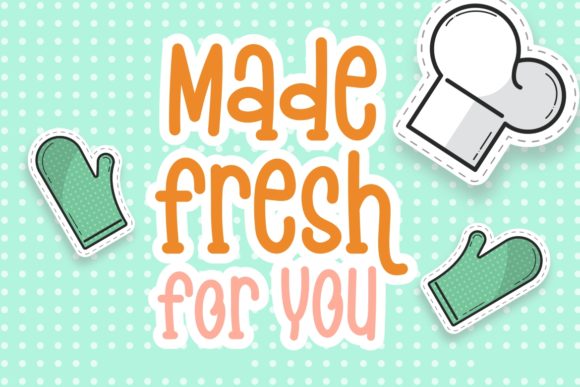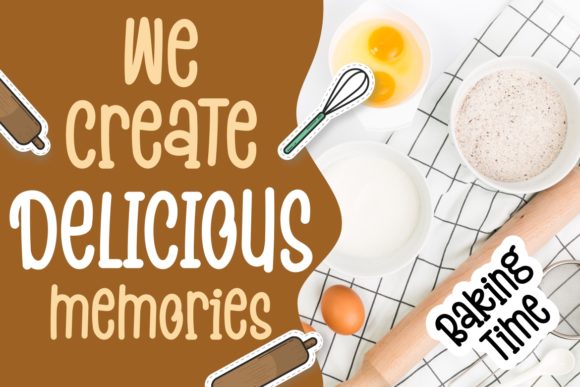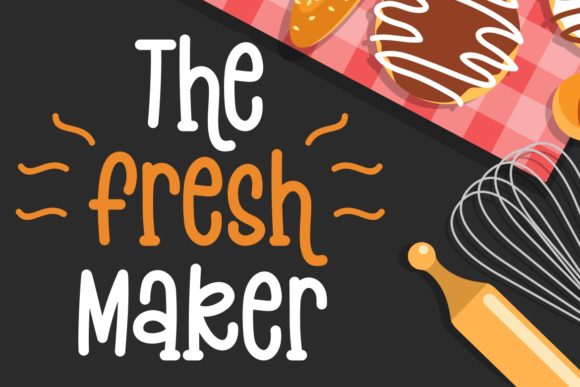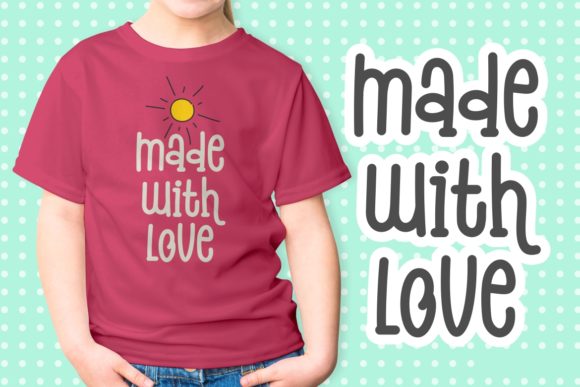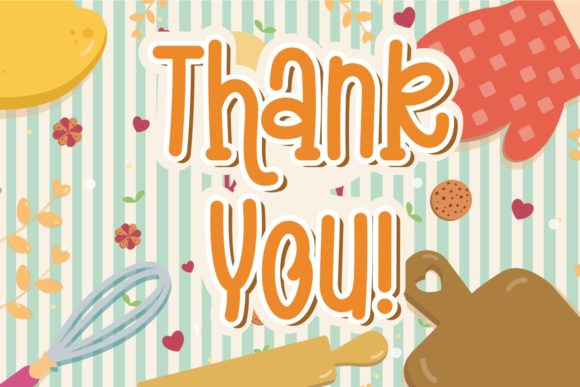
The Sweetest Touch: Baking Pastry Font
Have you ever found yourself in the midst of a creative project, searching for the perfect font to bring it to life? I know I have. The blank page stares back at me, and I’m left wondering what font will capture the essence of my idea. It’s in these moments that I’ve discovered some of my favorite fonts, and one that stands out in particular is the Baking Pastry Font.
This adorable handwritten font is designed to add a touch of warmth and authenticity to any design project. With its clean lines and playful feel, it’s perfect for creating beautiful wedding invitations, stunning social media posts, and adorable greeting cards. As a designer, I can appreciate the value of having a versatile font like Baking Pastry Font that can be used in a variety of creative ways.
Baking Pastry Font Key Features
- Unique Characteristics: Features a unique, hand-drawn design inspired by traditional baking and pastry illustrations, with intricate details and textures.
Baking Pastry Font Review
I recently had the chance to work with the Baking Pastry Font, and I must say it’s a unique addition to any baking-themed project. Here’s my honest review.
- Cute and whimsical design that’s perfect for baking-related projects
- Well-designed uppercase and lowercase letters, with clean lines and curves
- Accents and ligatures add a touch of personality to the font
- The font may be too cute for more serious or professional projects
- Lack of variety in weights and styles may limit its use in certain situations
- Not ideal for projects that require a lot of code readability
The Baking Pastry Font is a charming addition to any project that needs a touch of whimsy. While it may not be suitable for every situation, it’s perfect for baking-themed projects, social media graphics, or any project that needs a playful feel. If you’re looking for a unique font to add some personality to your project, the Baking Pastry Font is definitely worth considering.
Use Baking Pastry Font for titles, headings, and any text that requires a touch of elegance and sophistication.
Combine Baking Pastry Font with other fonts to create a unique and eye-catching design.
Baking Pastry Font is ideal for:
- Baking and cooking-related designs.
- Food and recipe blogs.
- Catering and event planning.
- Restaurant and cafe menus.
Alternatives to Baking Pastry Font
Playfair Display is a luxurious, high-end font that’s perfect for formal designs, magazines, and high-end branding. It’s more elegant and sophisticated than Baking Pastry Font, making it ideal for occasions where you want to convey luxury and sophistication.
Great Vibes is a beautiful, elegant script font that’s perfect for wedding invitations, event designs, and other creative projects. It’s more playful and whimsical than Baking Pastry Font, making it ideal for designs that need a touch of romance and elegance.
Carolyna Pro is a modern, elegant font that’s perfect for fashion, beauty, and lifestyle designs. It’s more minimalist and clean than Baking Pastry Font, making it ideal for designs that need a touch of sophistication and elegance without being too ornate.
Lato is a modern sans-serif font that’s perfect for digital designs, web applications, and mobile apps. It’s more clean and minimalistic than Baking Pastry Font, making it ideal for designs that need a touch of simplicity and readability.